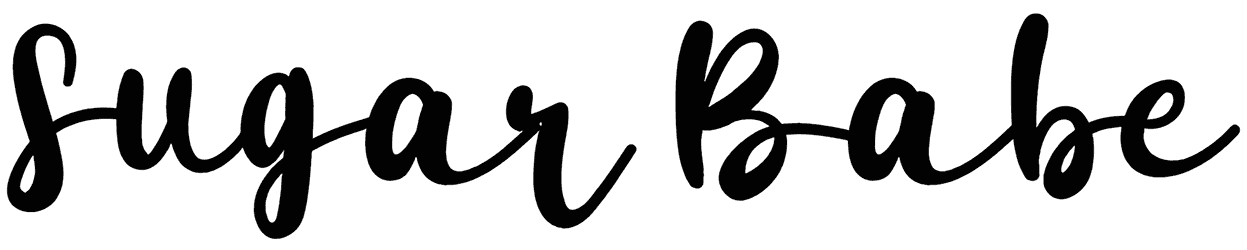
Sugar Babe Font
If you’re looking for a new member to join your script font family, Sugar Babe is the perfect choice to fill the void. This handwritten font has ink letters that each have a sequence at the end.
As a result, you can turn your mental ideas into reality by creating unique connections between them and giving them a different color. By using this invitation font, all your writings on books, albums, and posters will be one step ahead of competitors.